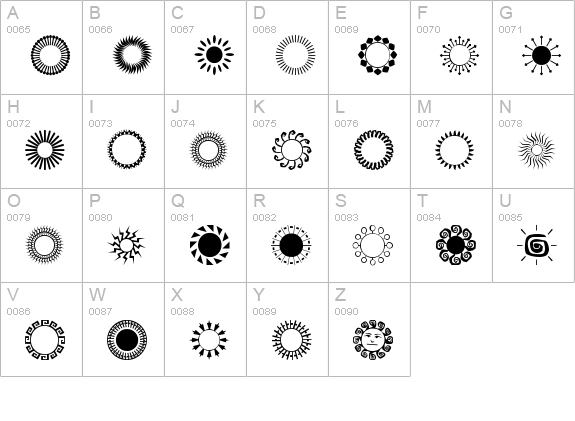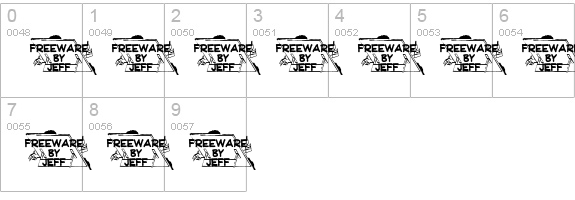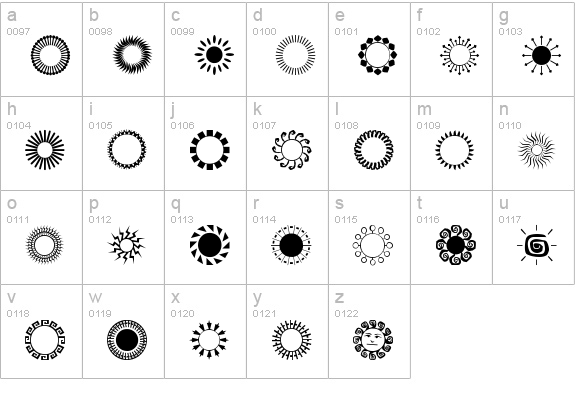
Sundings JL Font Details
Sundings JL font is a sleek and modern typeface that exudes elegance and sophistication. Its clean lines and stylish curves make it a versatile choice for a wide range of design projects. The font features a unique blend of traditional and contemporary elements, making it both timeless and on-trend. What sets Sundings JL font apart is its seamless integration of classic typography with a modern twist. The result is a font that is both approachable and eye-catching, perfect for adding a touch of sophistication to your designs. Best of all, Sundings JL font is available for free download at FontsMarket.com. This means you can easily access this stunning typeface and elevate your designs without breaking the bank. Whether you're working on a branding project, website design, or any other creative endeavor, Sundings JL font is sure to make a lasting impression. So why wait? Download Sundings JL font today and take your designs to the next level.